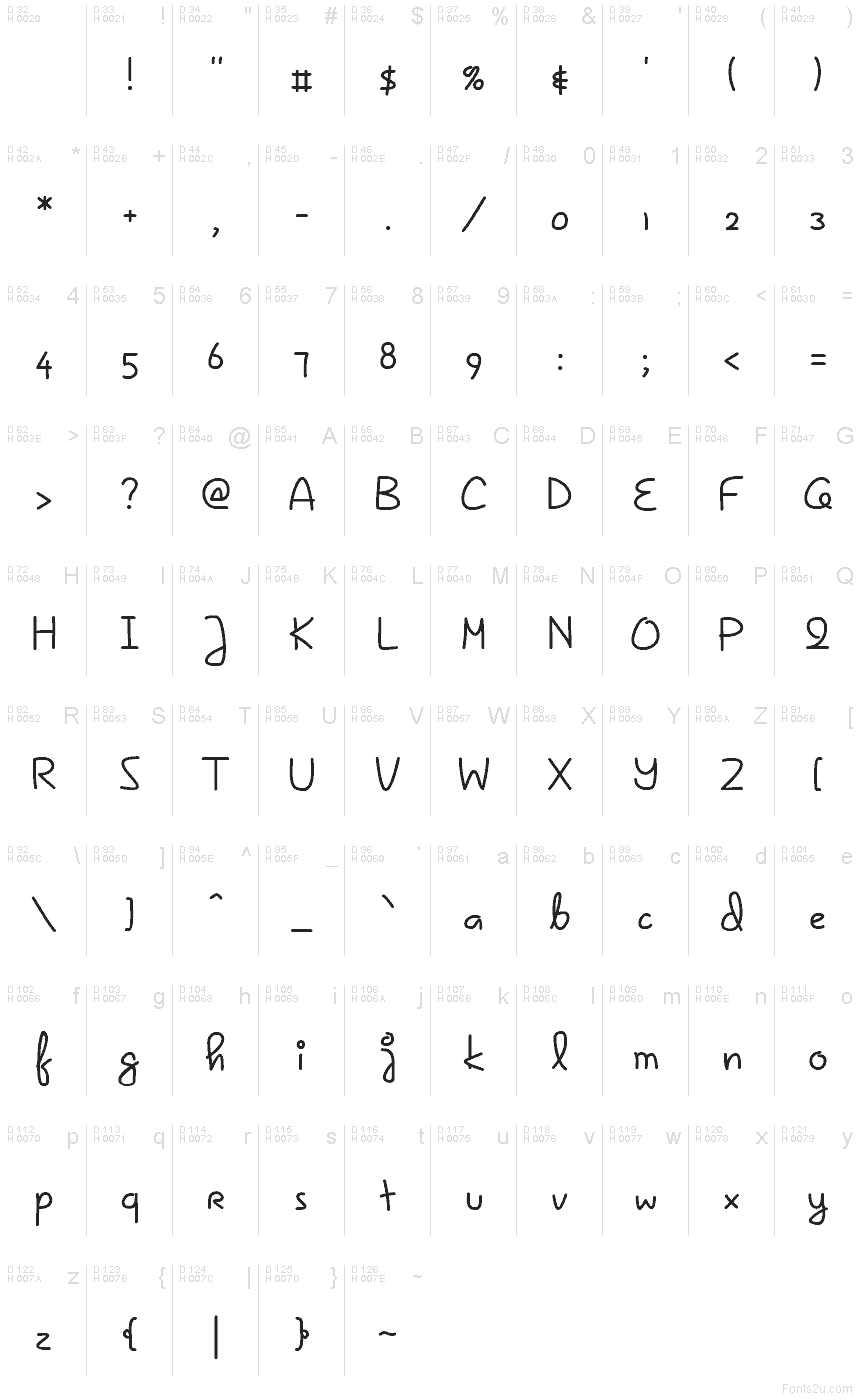
Gate Street
Gate Street font is a handwritten typeface created by Studio 14. Casual, approachable, and contemporary with its appealing aesthetics, it has a friendly and inviting mood that draws attention to the written message. Its characters support sophisticated looks while preserving an intimate vibe that engages viewers.
The initial version of the font was completed in just a few hours.